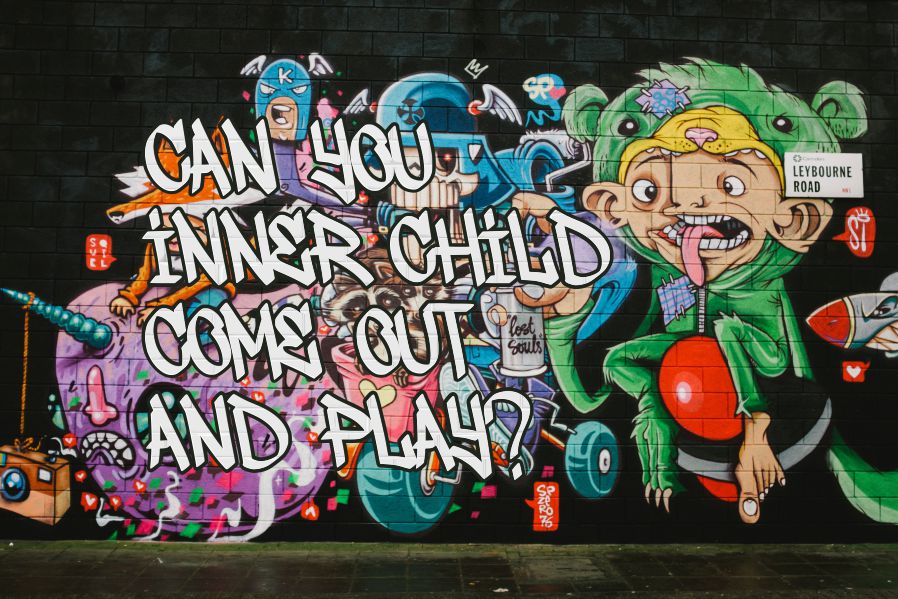
Morfem Font
Morfem Display Font
It’s a graffiti font with two style. Morfem is perfect for product packaging, branding project, megazine, social media, wedding, or just used to express words above the background. This font includes OTF&TTF&Woff, Morfem also multilingual support.